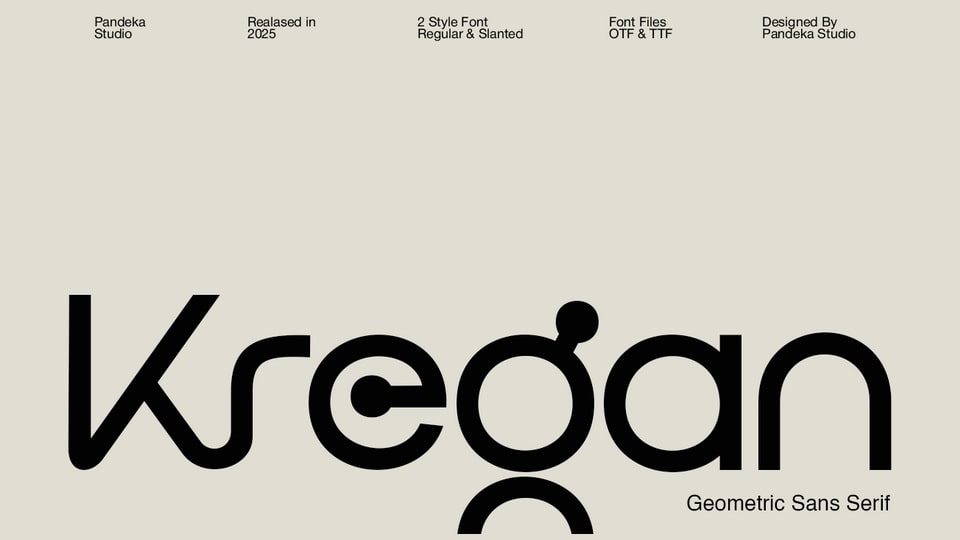
Download Kregan font, a modern geometric sans-serif typeface that embodies minimalism and clarity. With 2 versatile styles adapts to a wide range of contemporary design needs.